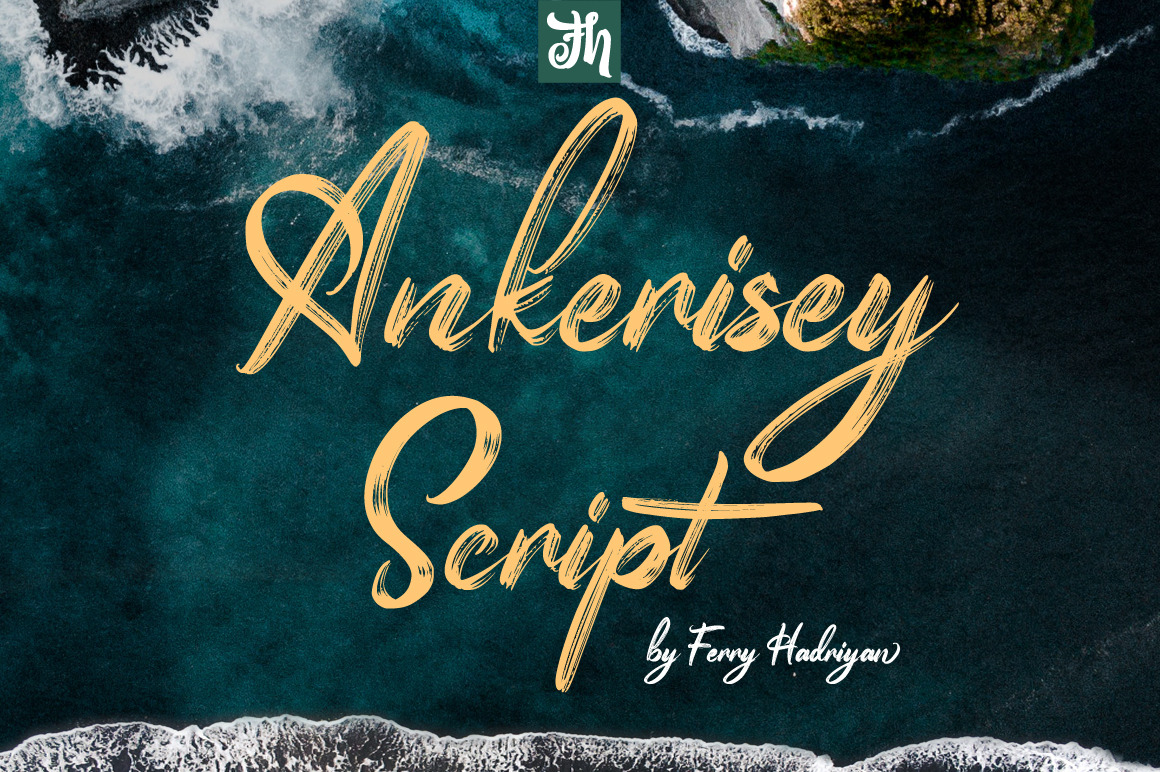
Ankerisey - Handwritten Font
Ankerisey is Script Font with Handlettering Dry Brush Style, with opentype feature include of the font. Suitable for design, element design, wedding, event, t-shirt, logo, badges, sticker, and awesome work, etc...
All Standard Character, Symbol, Multilanguage, Ligature, Stylistic Set, and Swashes.
Unique style fonts